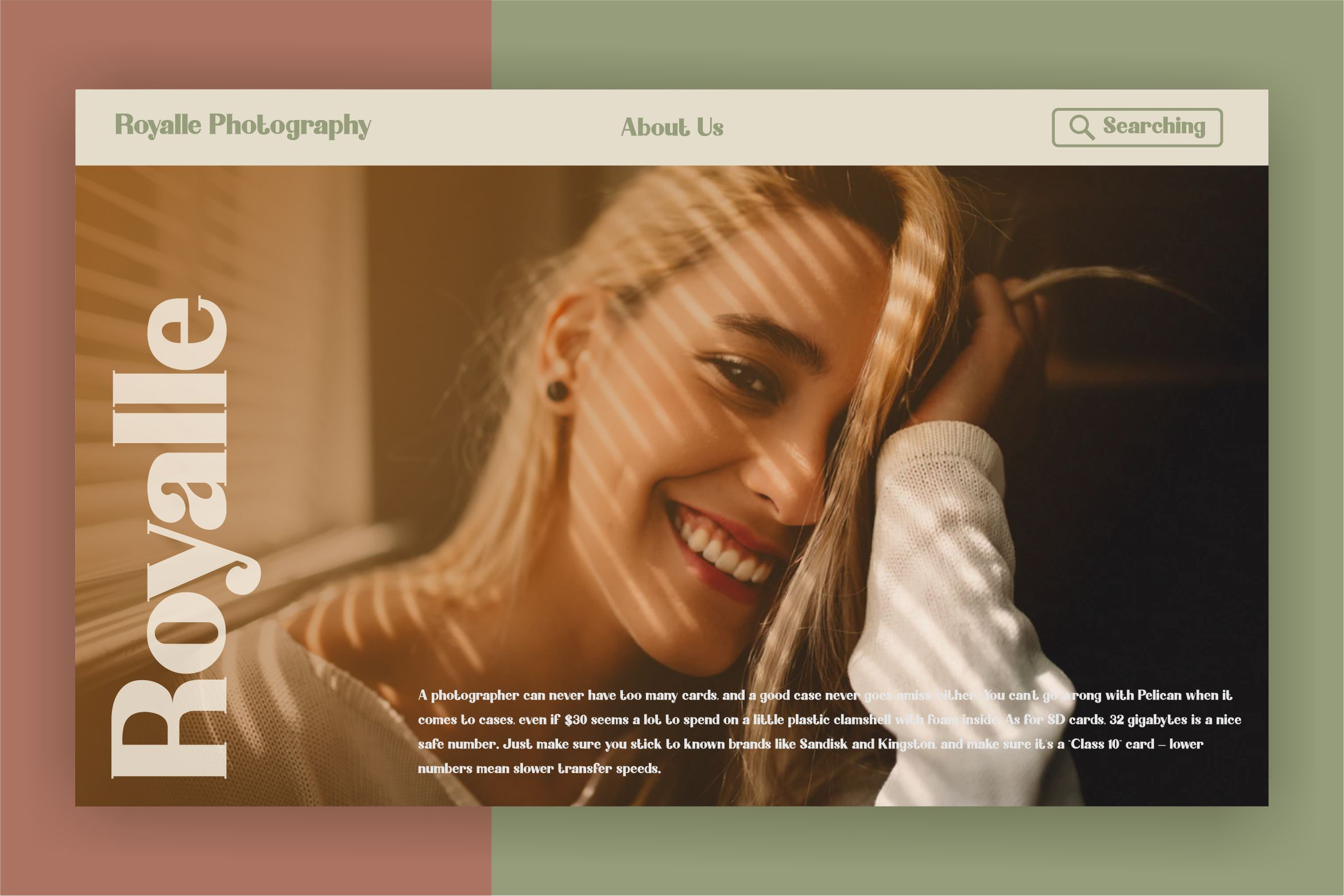
Brandson Sans Serif Font
Brandson is a Classic Typeface Create bold, gorgeous headlines and elegant designs with a vintage flair. Brandson contrasting lines and curved terminals give a sleek, elegant look to logos, holiday cards, wedding invitations, quotes, advertisements, and more. Brandson is a versatile typeface that's full of character and one you'll come back to time and again. Create something beautiful today with ''Brandson''. This font also suport multilingual font'' DOWNLOAD HERE: https://thehungryjpeg.com/product/3657723-brandson